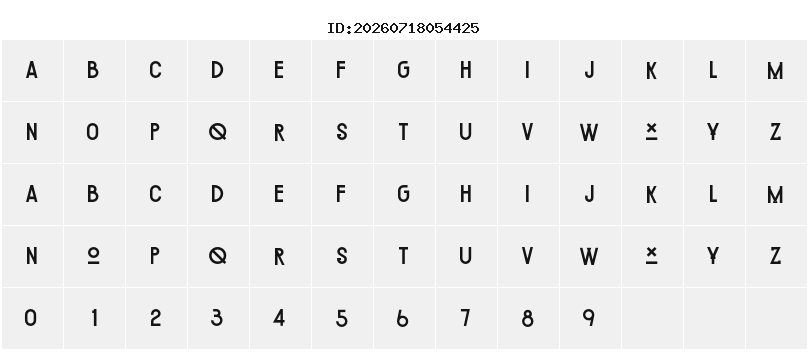
• Font Name: Chipotle
• Designer: Awesombroso
About Chipotle.otf
Chipotle.otf is a modern, elegant sans-serif font designed for ultimate readability and visual harmony. Perfect for branding, headlines, web design, and print materials.